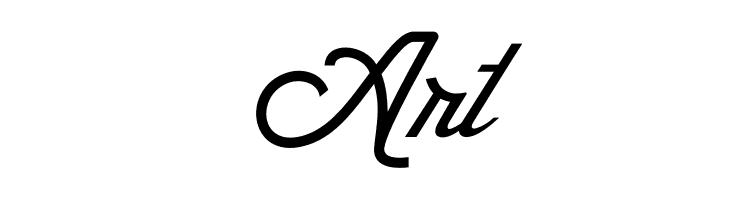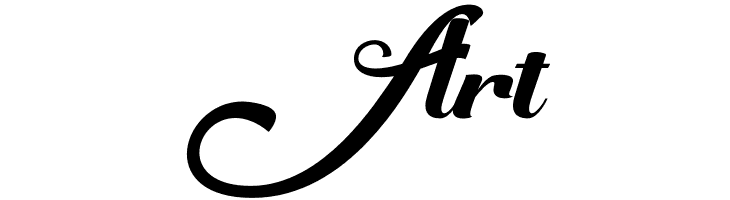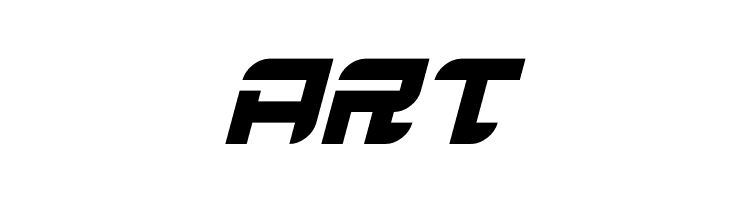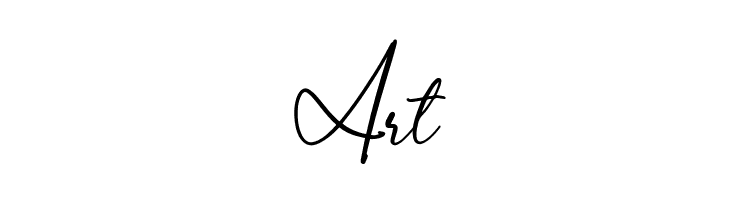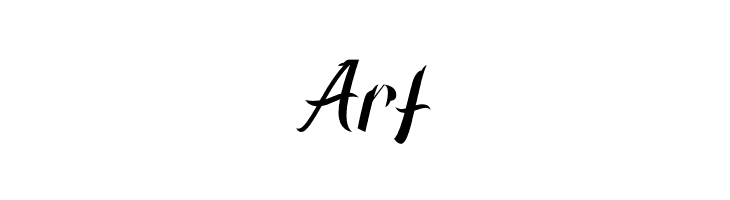
An elegant script font with fluid, cursive strokes and sophisticated flourishes.
A bold, dynamic font with sharp edges and a vintage-modern style.
A bold, expressive script font with flowing, cursive letterforms.
A modern, condensed sans-serif font with uniform stroke width and a sleek appearance.
A bold, modern font with thick, uniform strokes and geometric precision.
A pixelated, blocky font with a retro digital aesthetic.
A flowing, cursive script font with elegant, sweeping forms and playful flourishes.
A bold, jagged font with sharp, thorny edges for a dynamic look.
A bold, geometric font with a modern and clean aesthetic.
A fluid, elegant handwritten font with a sophisticated and creative style.
A pixelated, retro font inspired by early digital and arcade aesthetics.
A bold, expressive font with a handcrafted, artistic flair.
A flowing, cursive script font with elegant, connected strokes.
A bold, brush-stroke font with a textured, hand-painted appearance.
Elegant cursive font with fluid, interconnected strokes.
A graceful script font with flowing, cursive strokes and elegant loops.
An elegant script font with flowing, cursive lines and a refined aesthetic.
A bold, rounded geometric font with a modern and friendly style.
A modern, rounded sans-serif font with smooth curves and a clean, uniform appearance.
A bold, geometric font with angular, futuristic design elements.
A bold, italicized font with angular, geometric characters for a futuristic look.
A bold, angular, and italic font with a futuristic style.
A futuristic, hollow font with geometric and angular shapes.
A hollow, inverse, geometric font with a futuristic and edgy style.
A playful, bold font with irregular, hand-drawn letterforms.
A playful, hand-drawn font with an artistic and whimsical style.
A bold, geometric font with sharp angles and thick strokes.